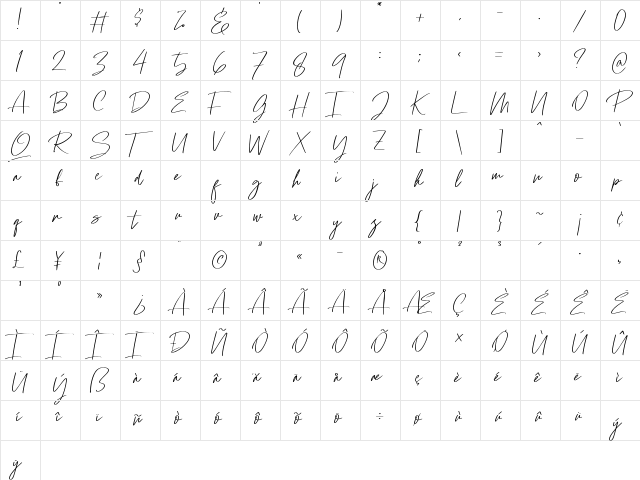
Ramstay Regular
| Designer | Dimas Prasetyo |
Design Context for Ramstay Typeface
Ramstay is a composed and adaptable typeface that performs quietly and consistently across a wide range of design contexts.